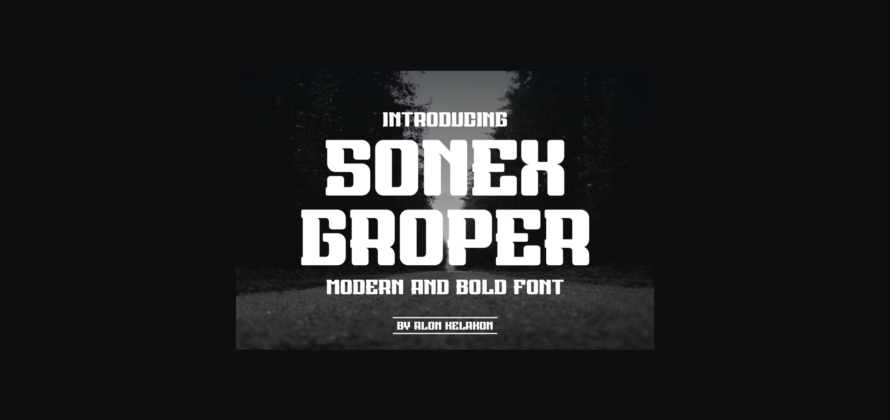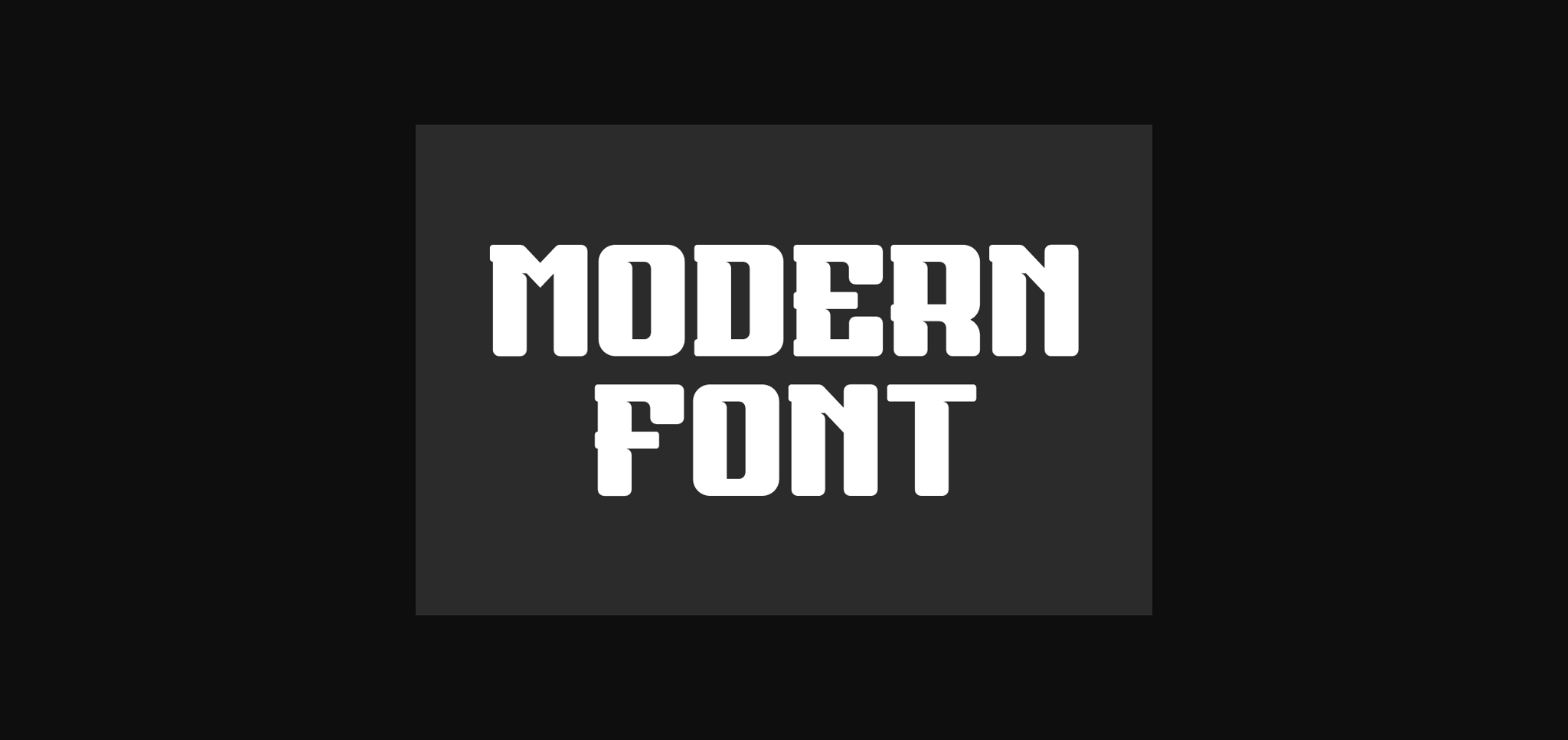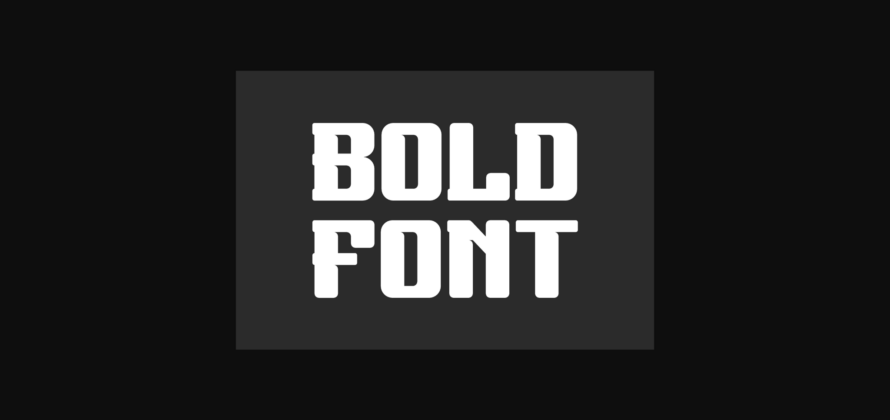
Sonex Groper Font
About Sonex Groper Font
Sonex Groper is a bold and assertive serif font. No matter the topic, this font will be an incredible asset to your fonts’ library, as it has the potential to elevate any
creation.